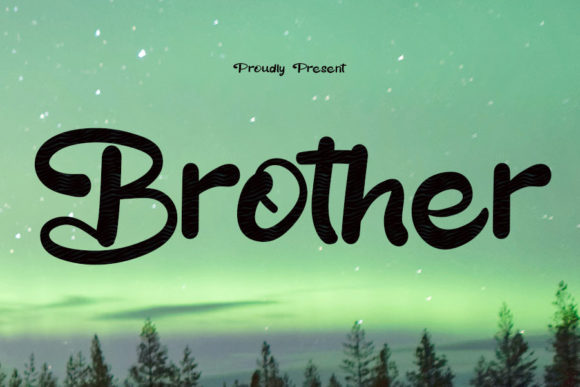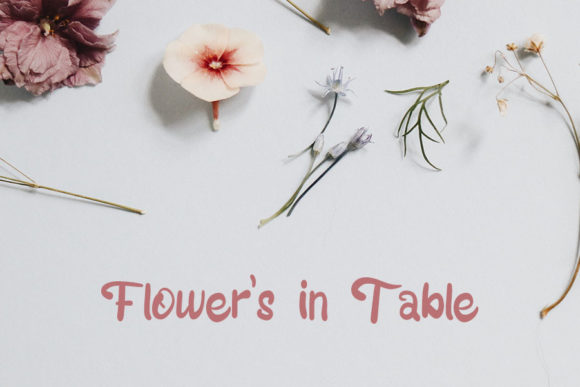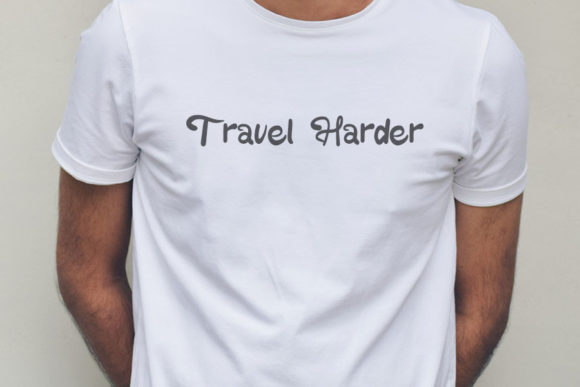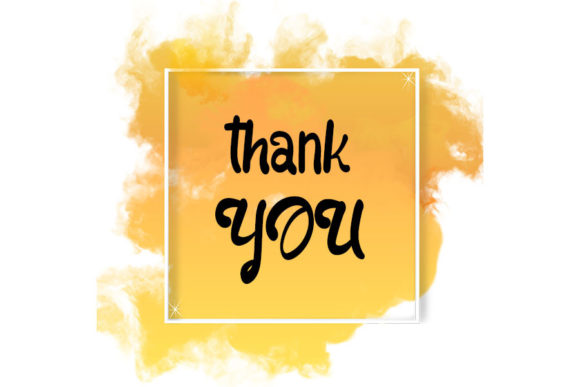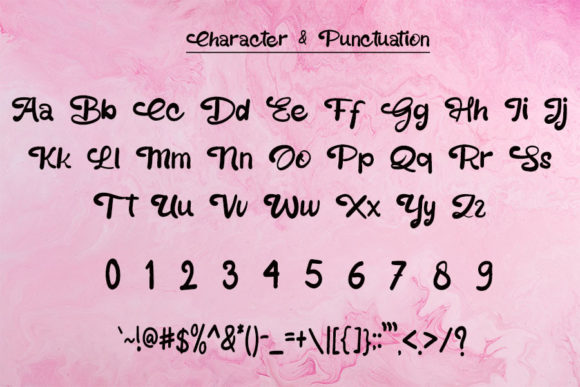
Brother Font
About Brother Font
Brother is an incredibly unique handwritten font. Masterfully designed to become a true favorite, this font has the potential to bring each of your creative ideas to the highest level!